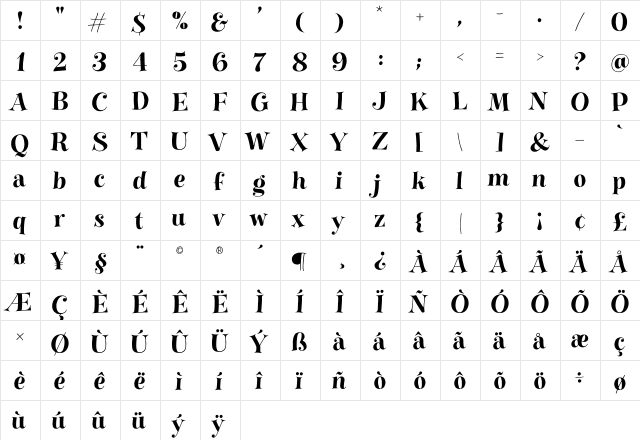
Gavabon Clean
| Foundry | Youssef Habchi |
| Designer | Youssef Habchi |
Design Context for Gavabon Typeface
Gavabon takes a measured approach to typography — its balanced proportions and neutral character make it a reliable workhorse for both digital and print work.